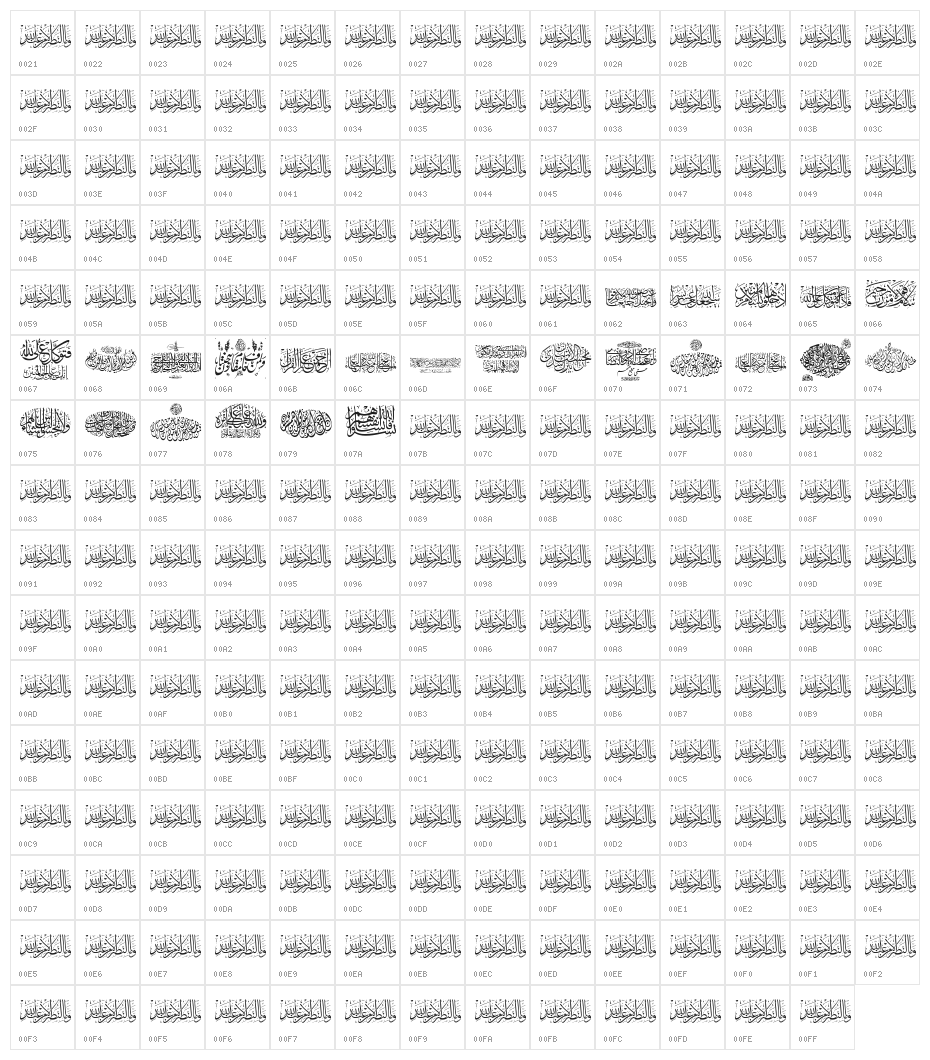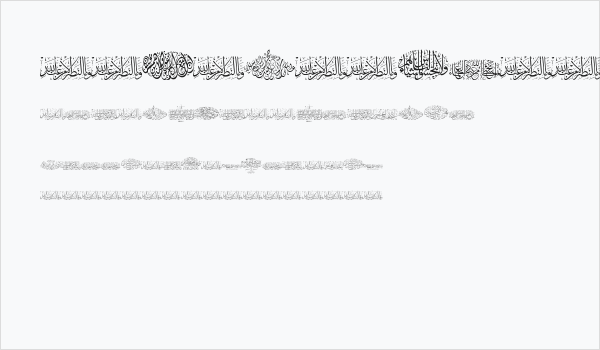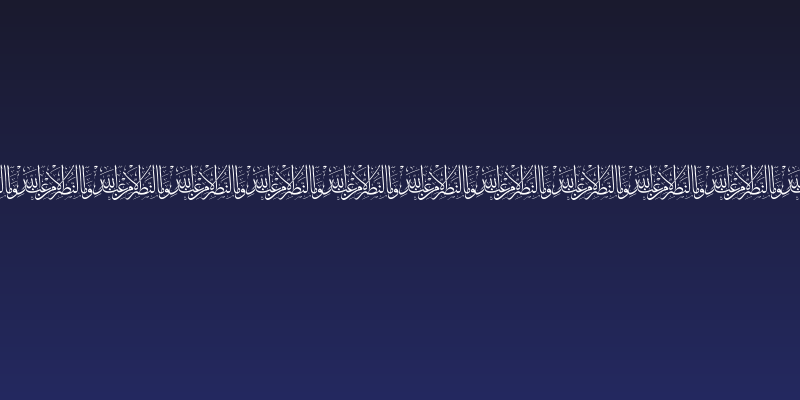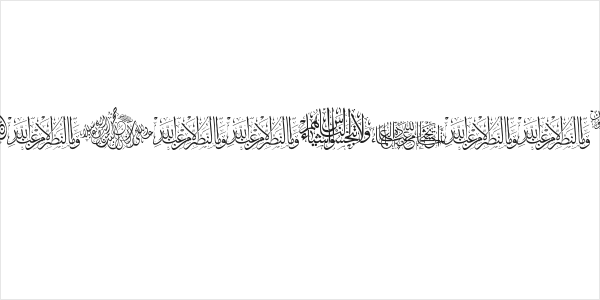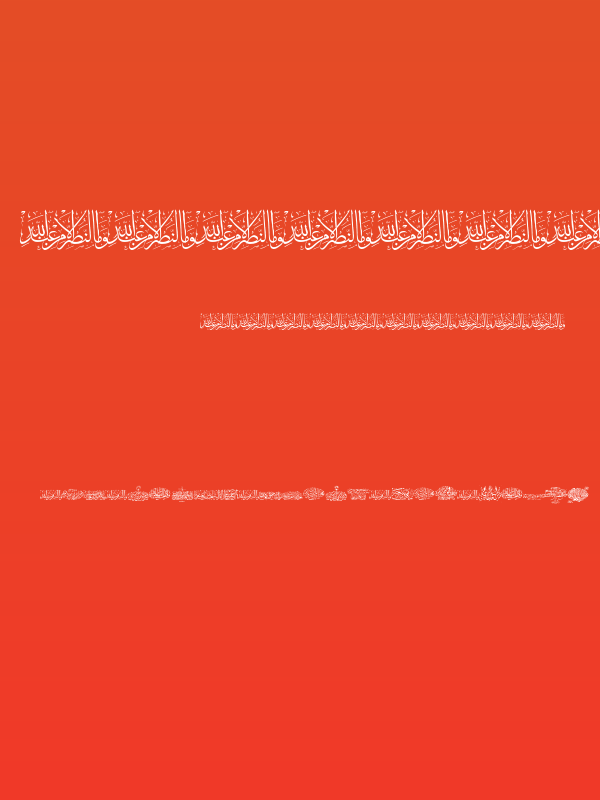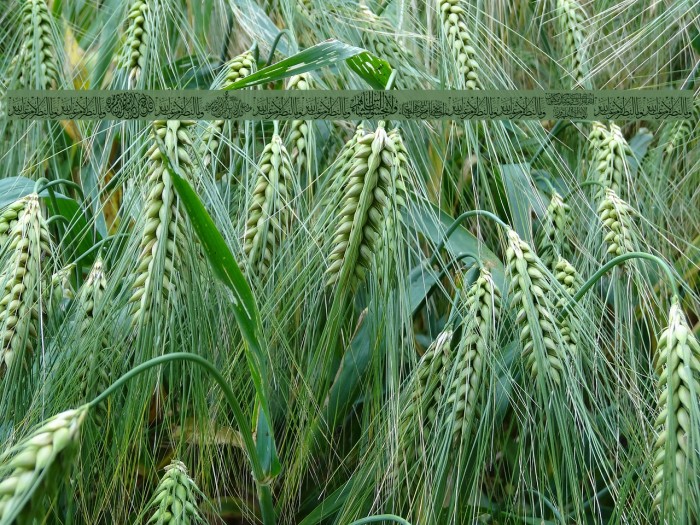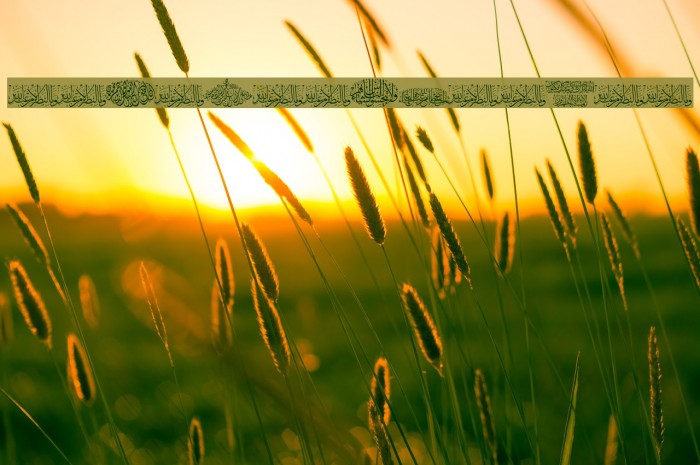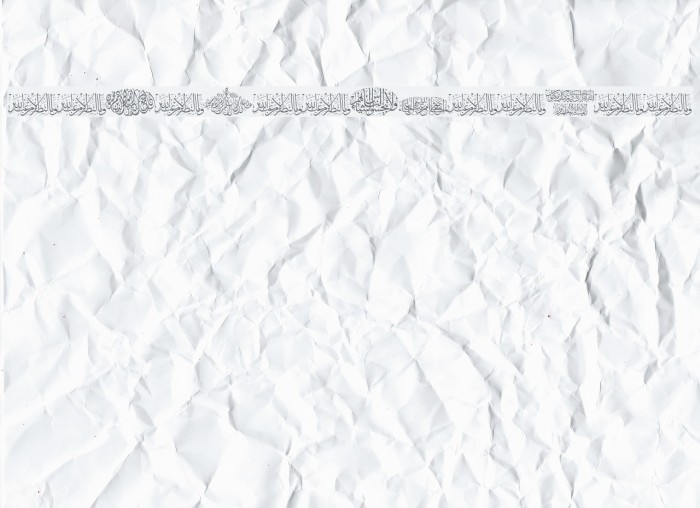
Aayat Quraan 1 Font
Aayat Quraan 1 Description
This is a traditional Arabic script characterized by its intricate and flowing calligraphic style. The script is highly decorative, featuring elaborate curves and flourishes that are typical of classical Arabic calligraphy. The characters are closely spaced, creating a dense and continuous flow of text. The script is often used for religious texts and formal documents, reflecting a sense of reverence and tradition. The high contrast between thick and thin strokes adds to the elegance and readability of the script.
| Overall Style | Classic |
| Use Case | Religious texts, Formal documents |
| Proposed Projects | Ideal for religious texts, formal documents, art pieces, and cultural projects. |